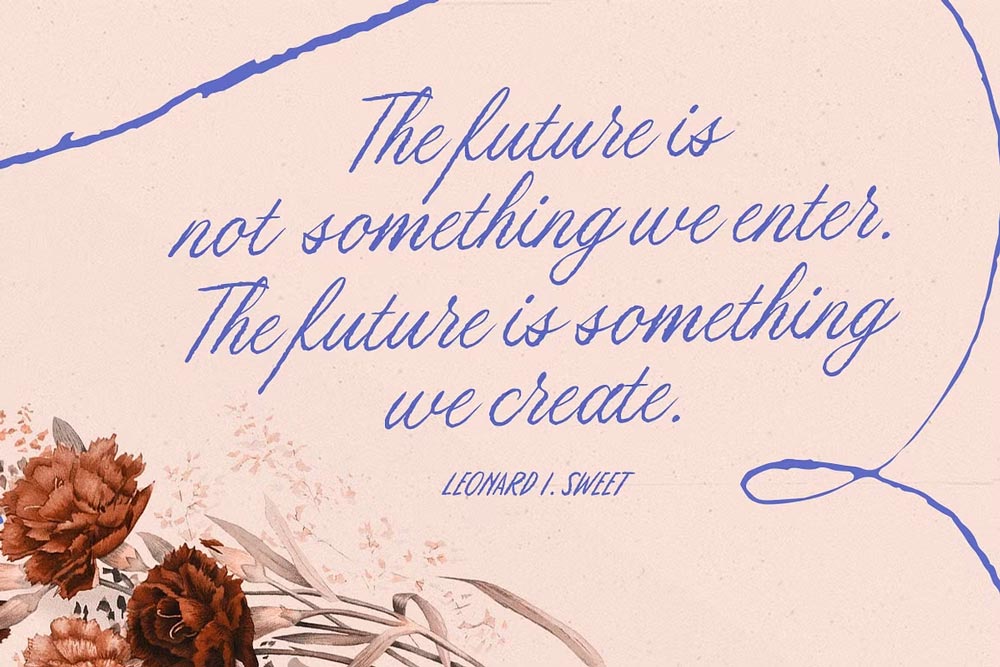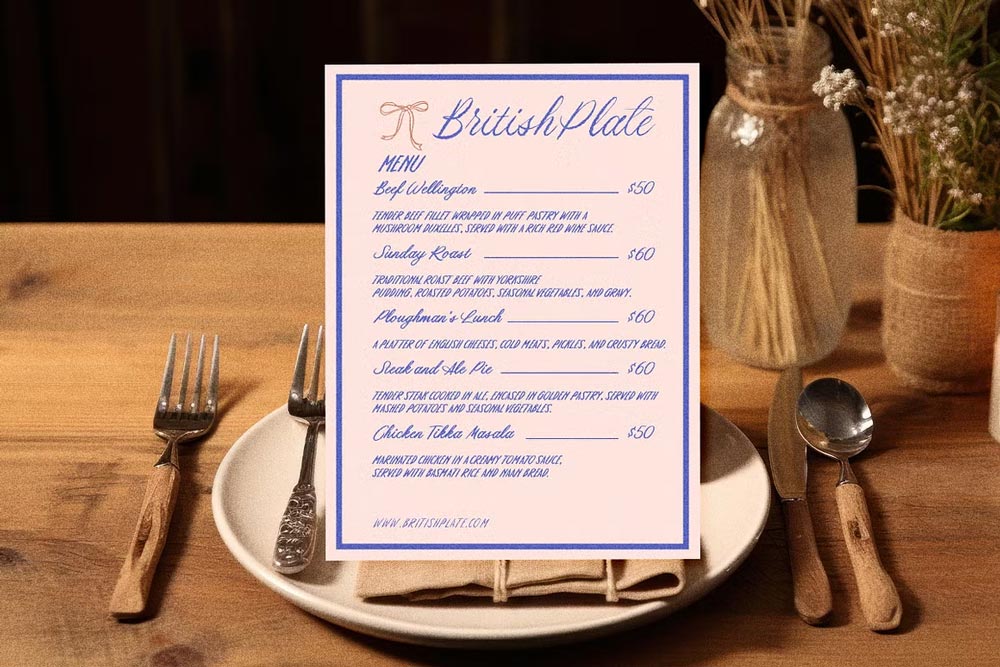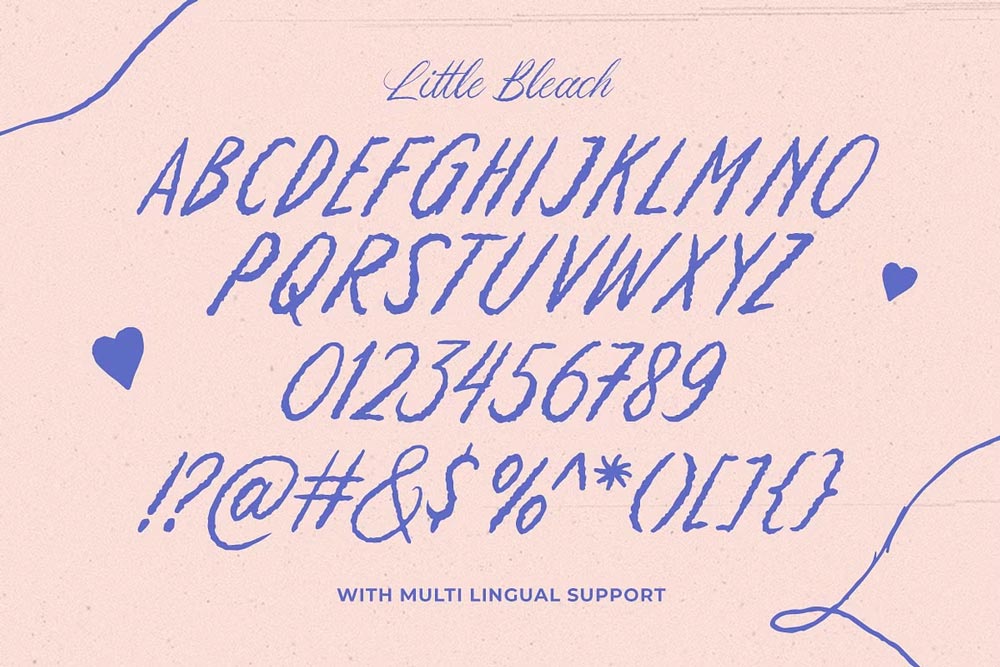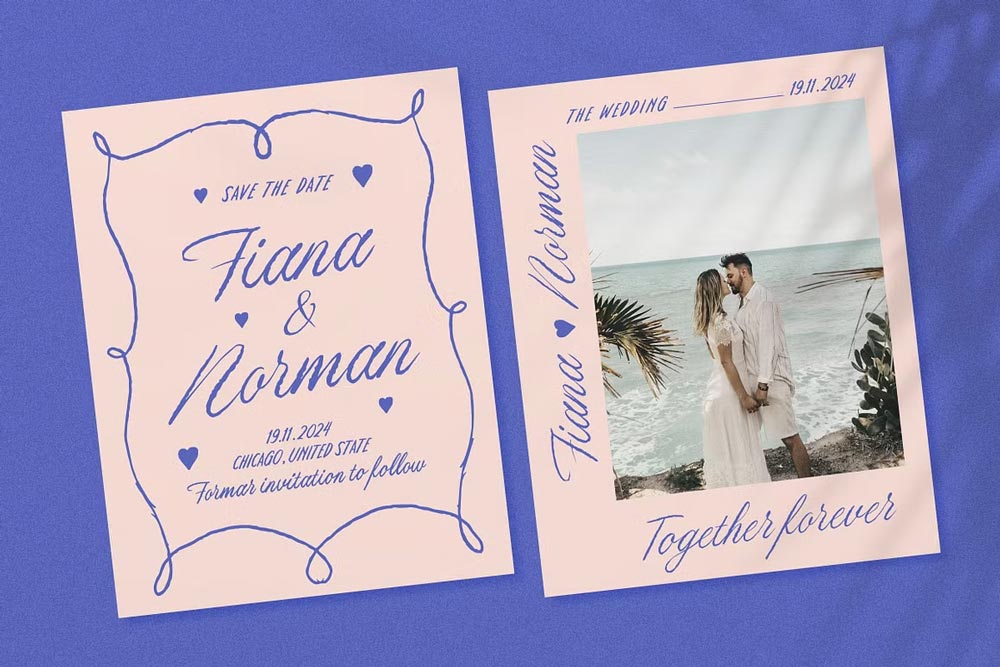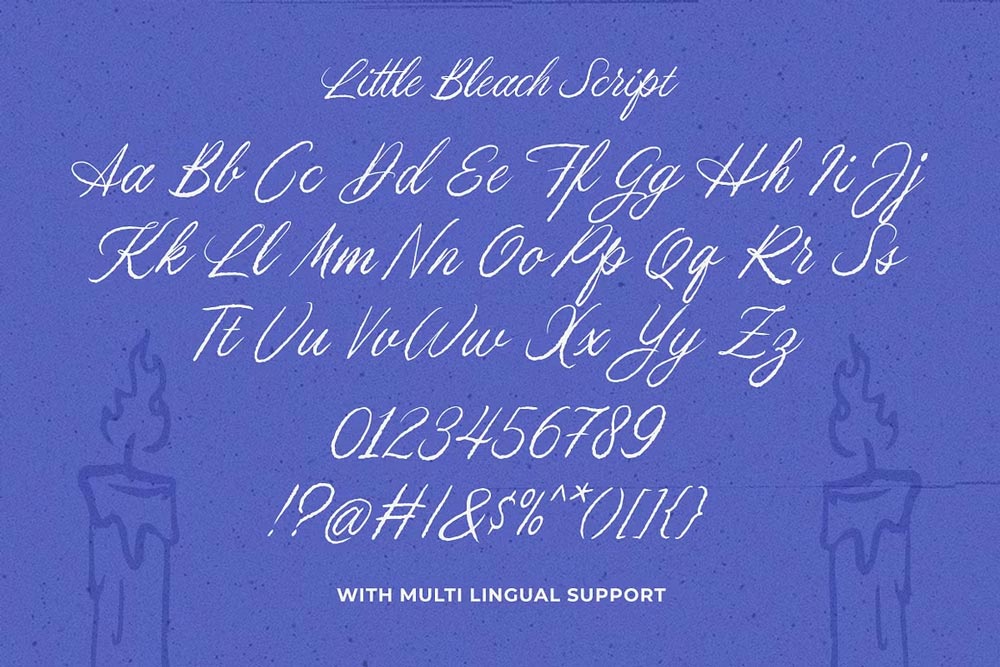
Little Bleach Handwritten Font Duo is a font crafted by combining two styles: a textured script and an organic sans handwritten. These fonts blend beautifully together, making them ideal for various uses such as logos, invitations, labels, magazines, books, and greeting cards. They are also great for packaging, fashion, makeup, stationery, and all kinds of advertising!
Features:
- Illustration Bonus
- Uppercase & lowercase
- Numbers and punctuation
- Multilingual